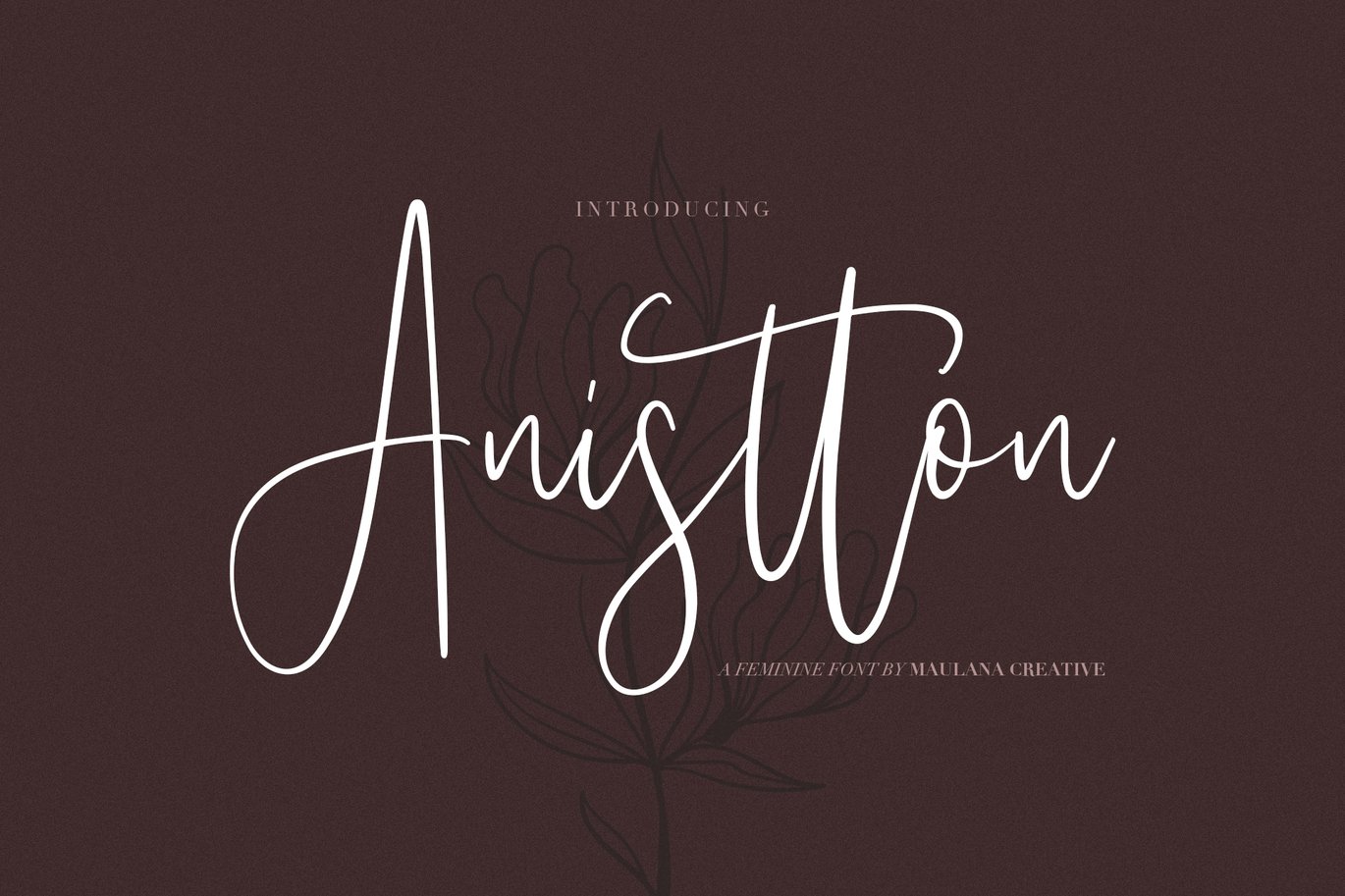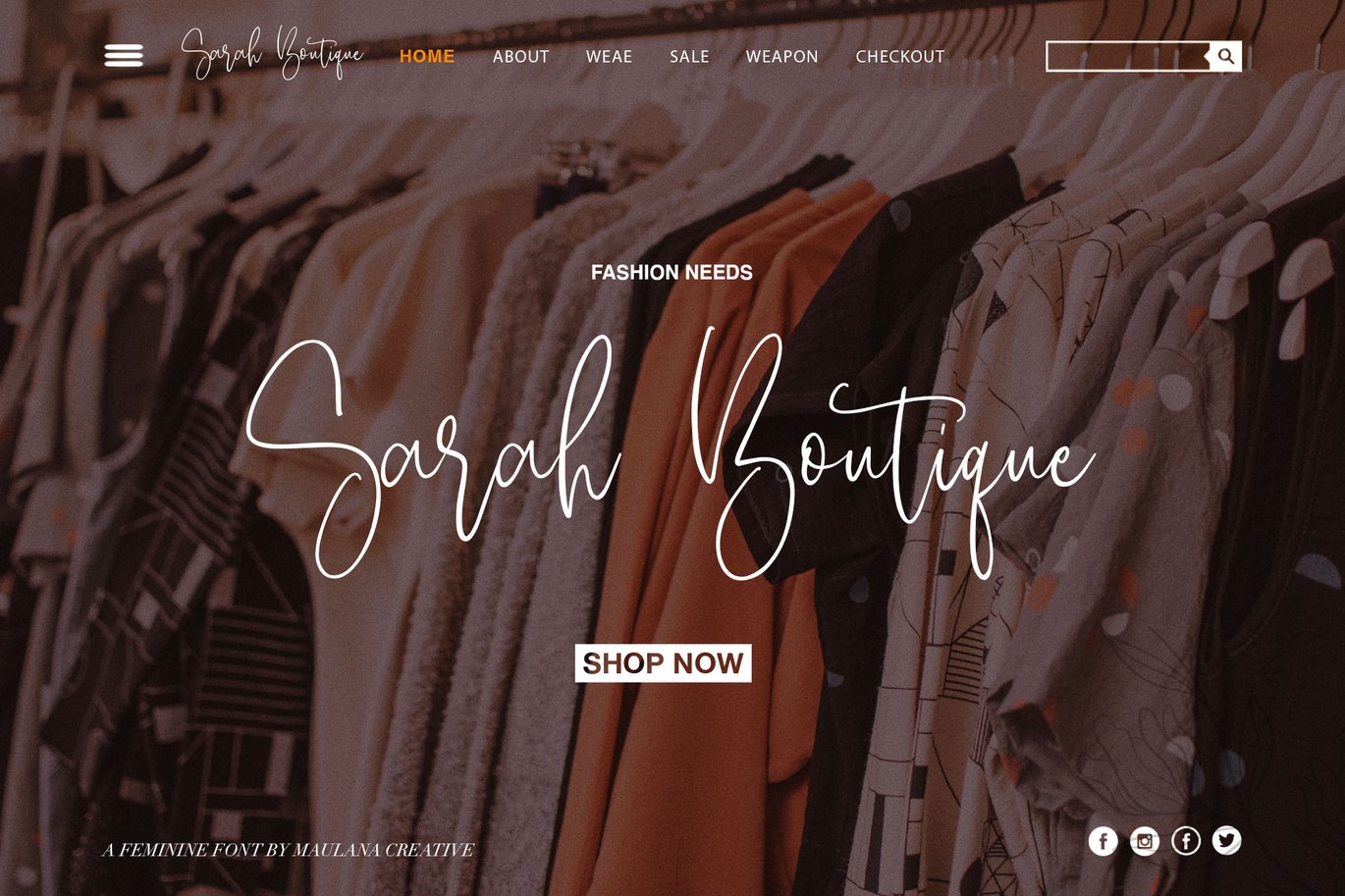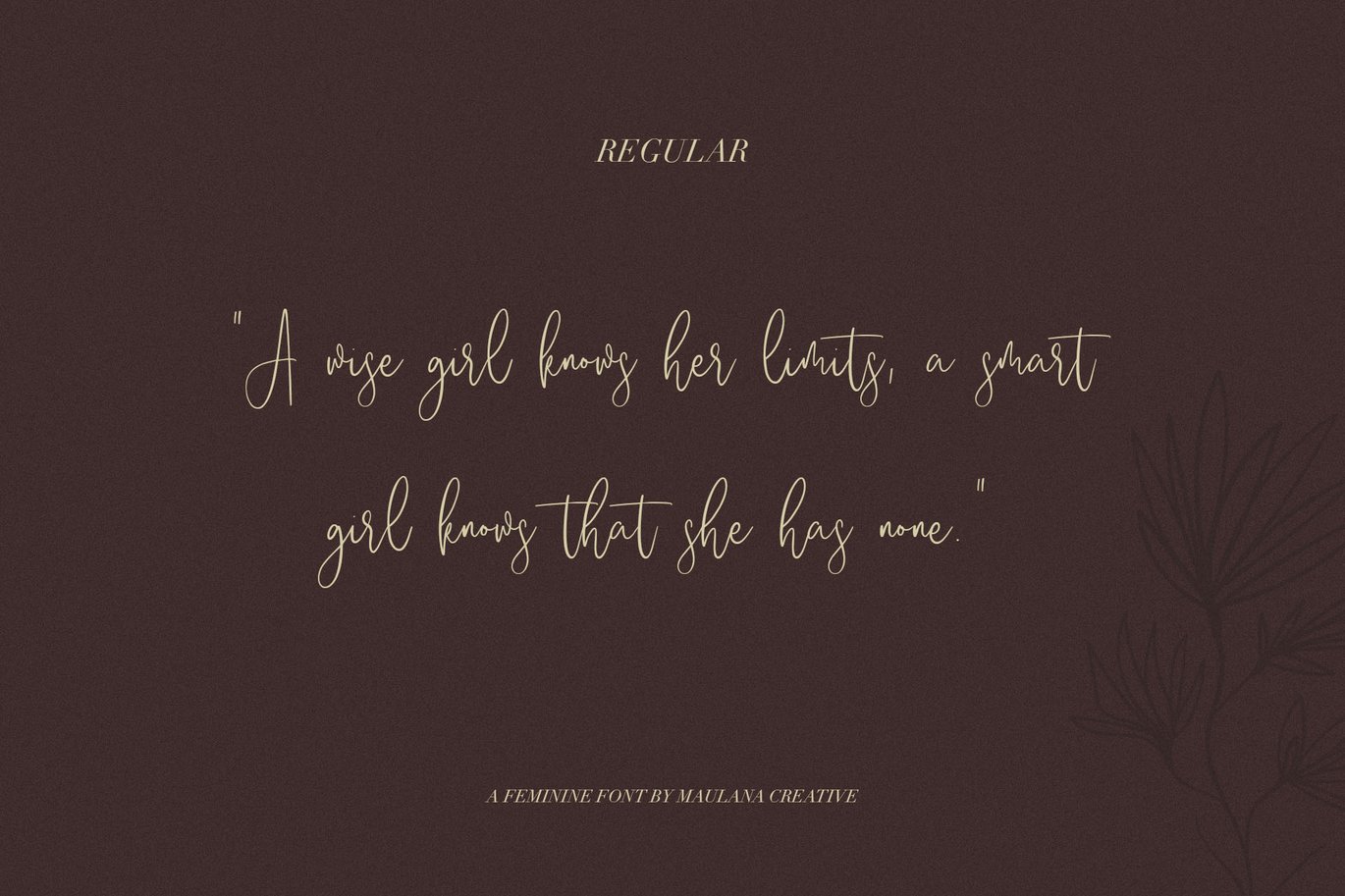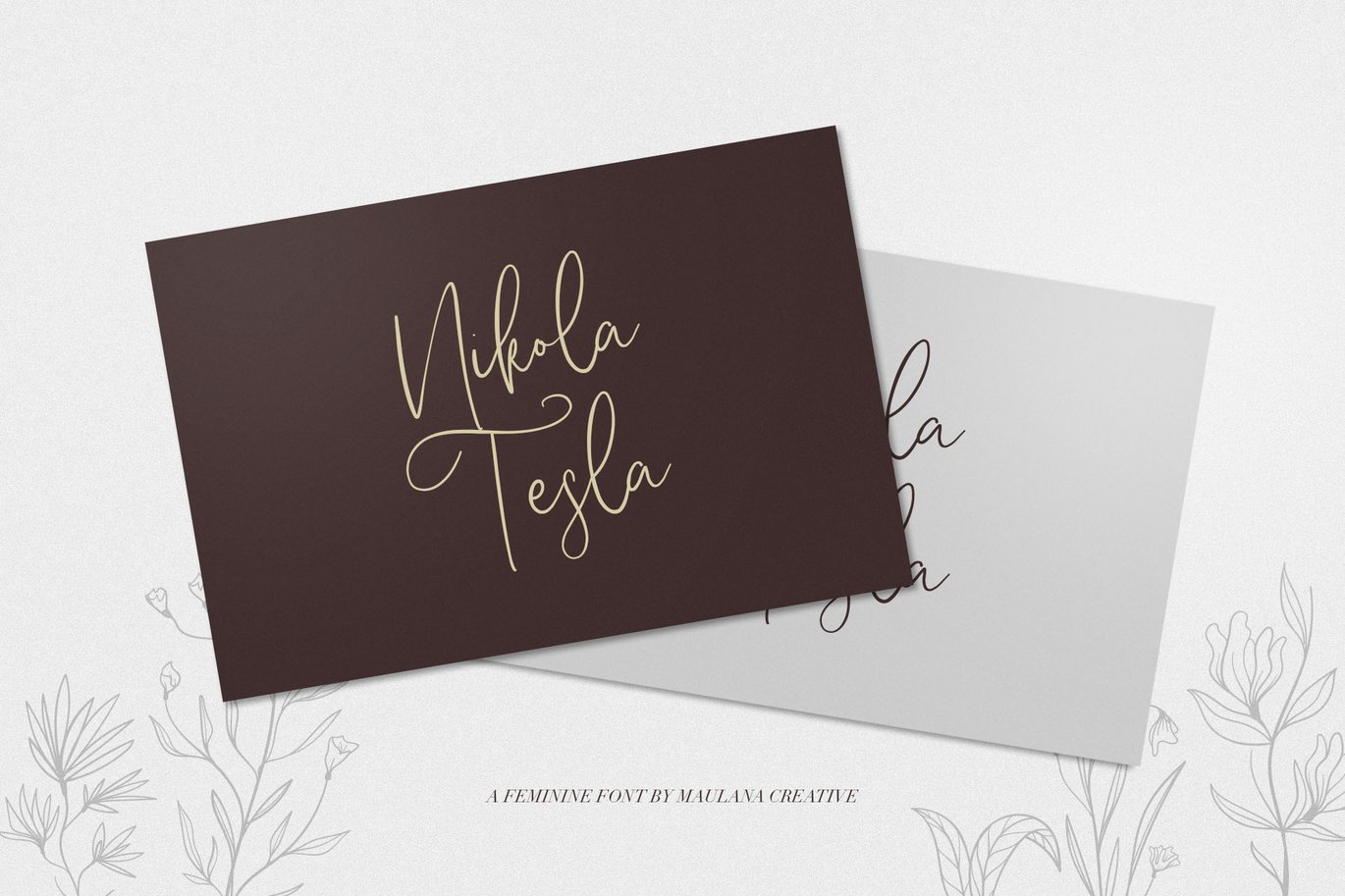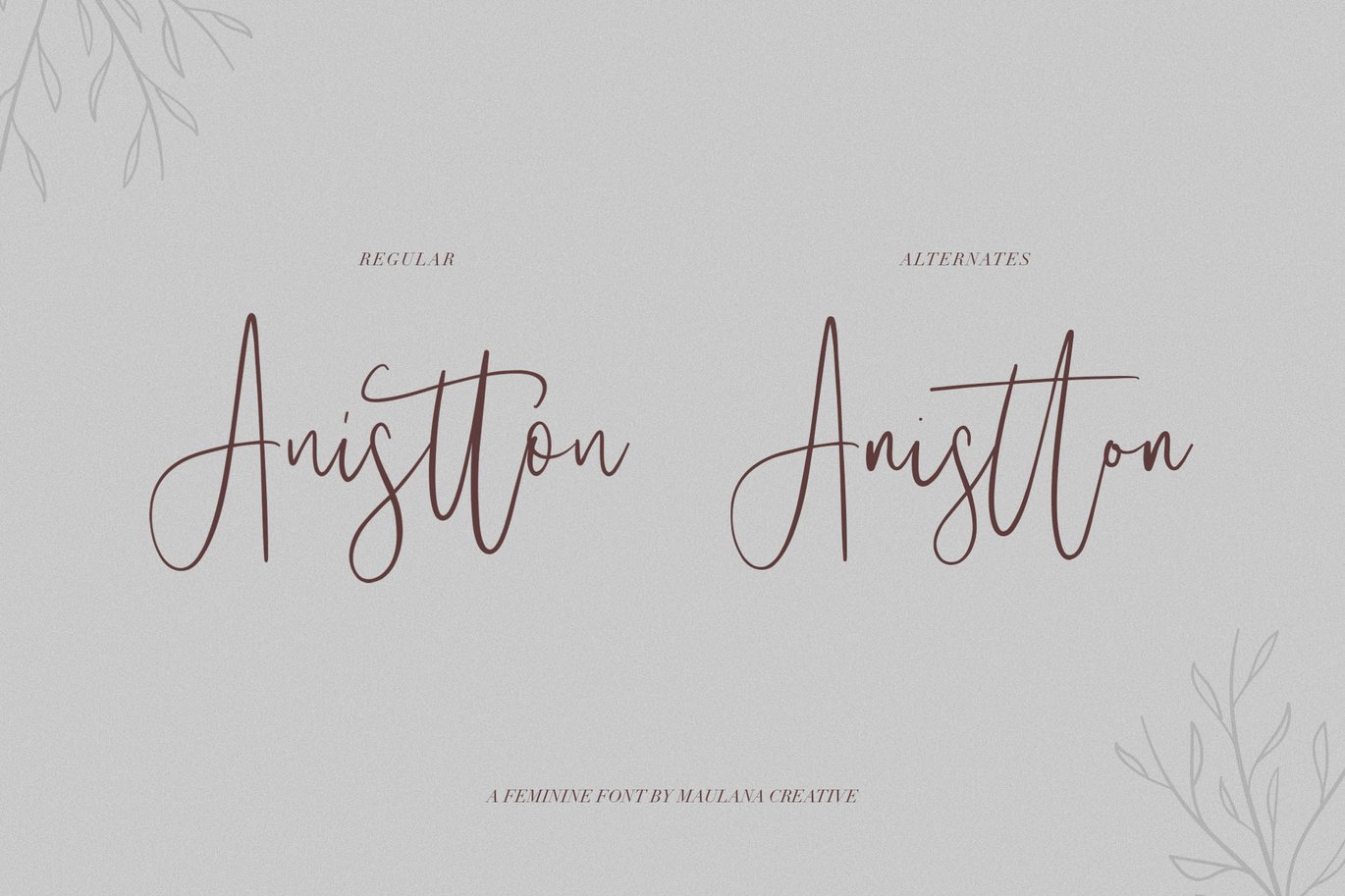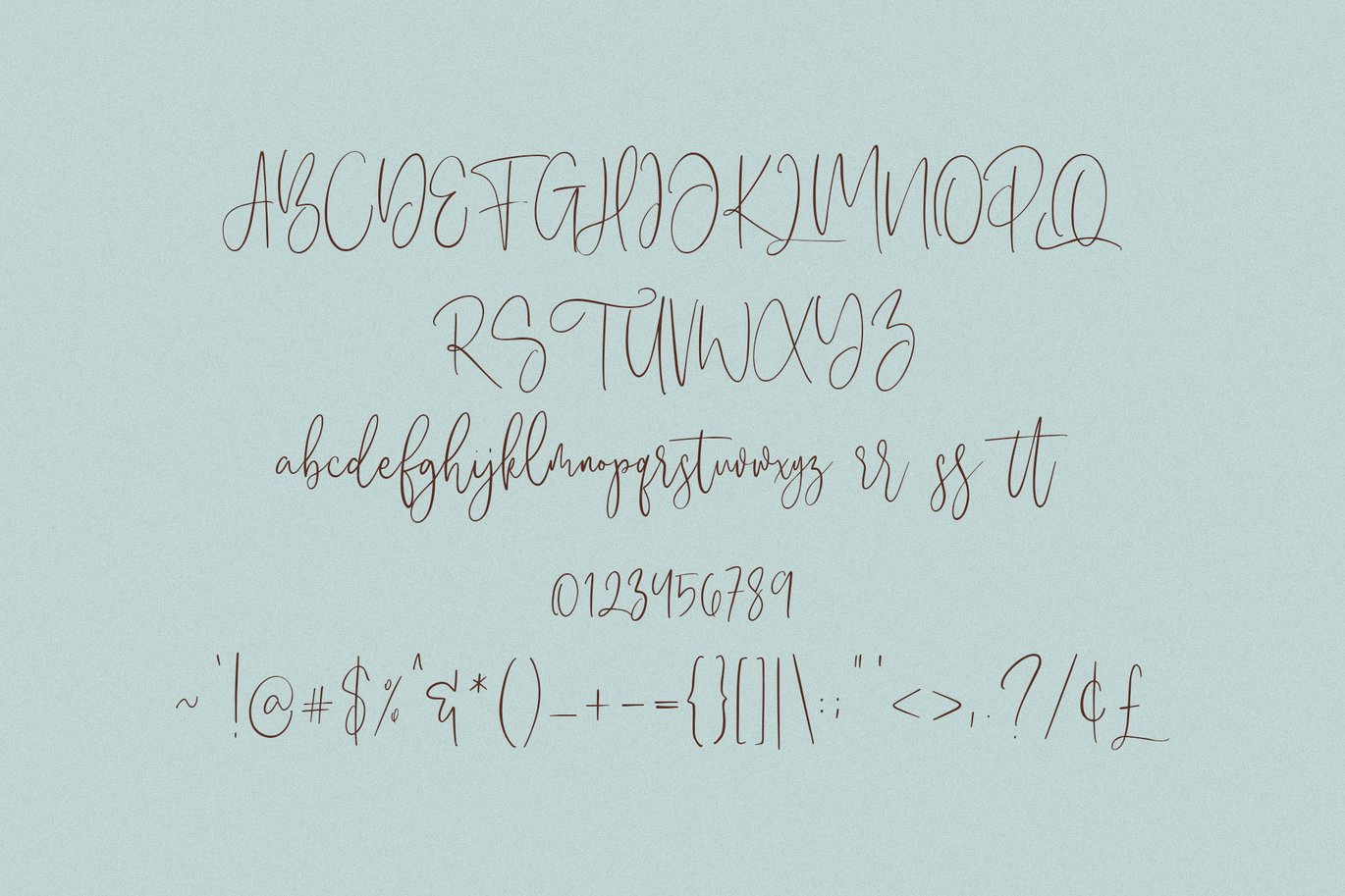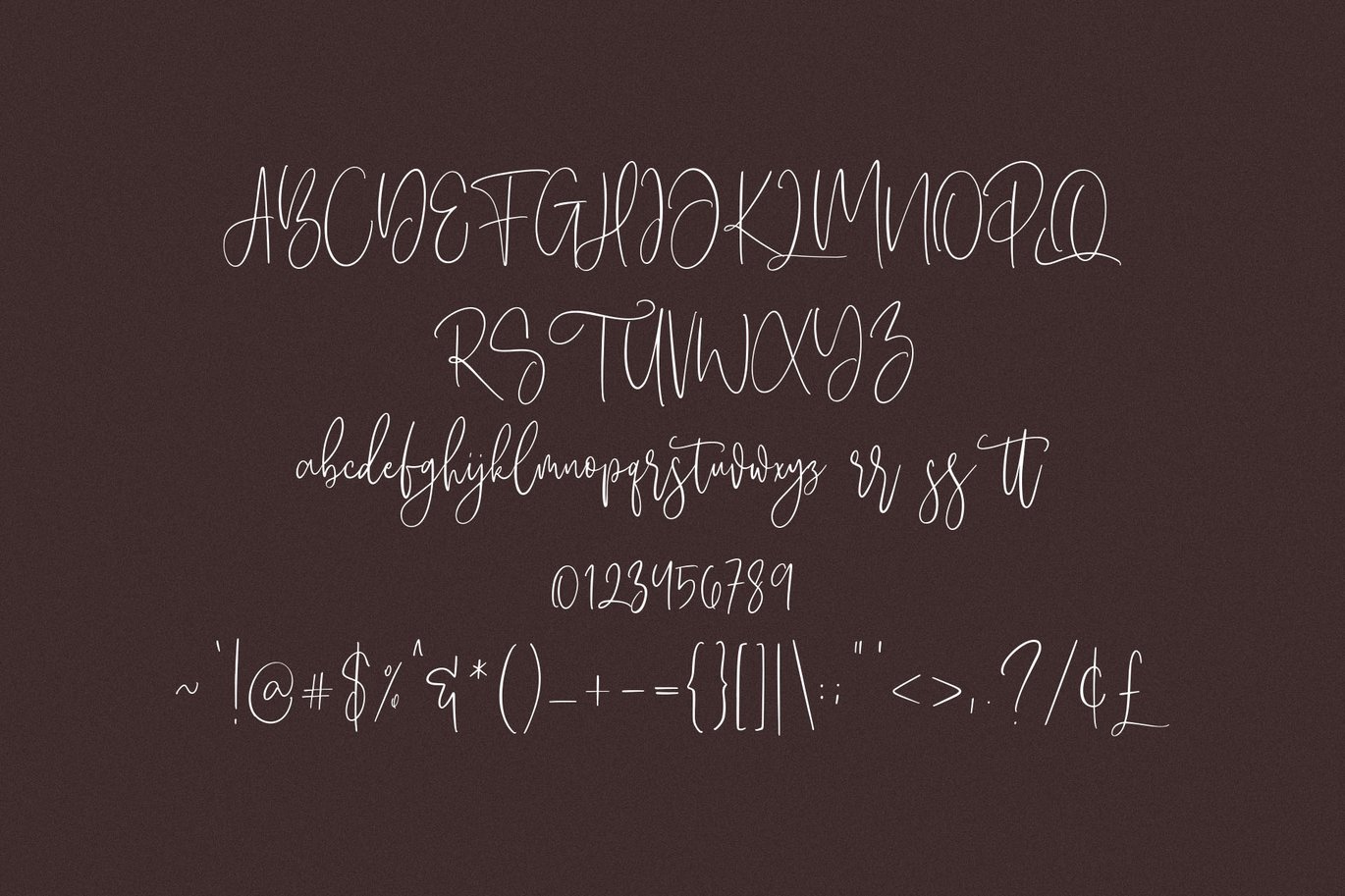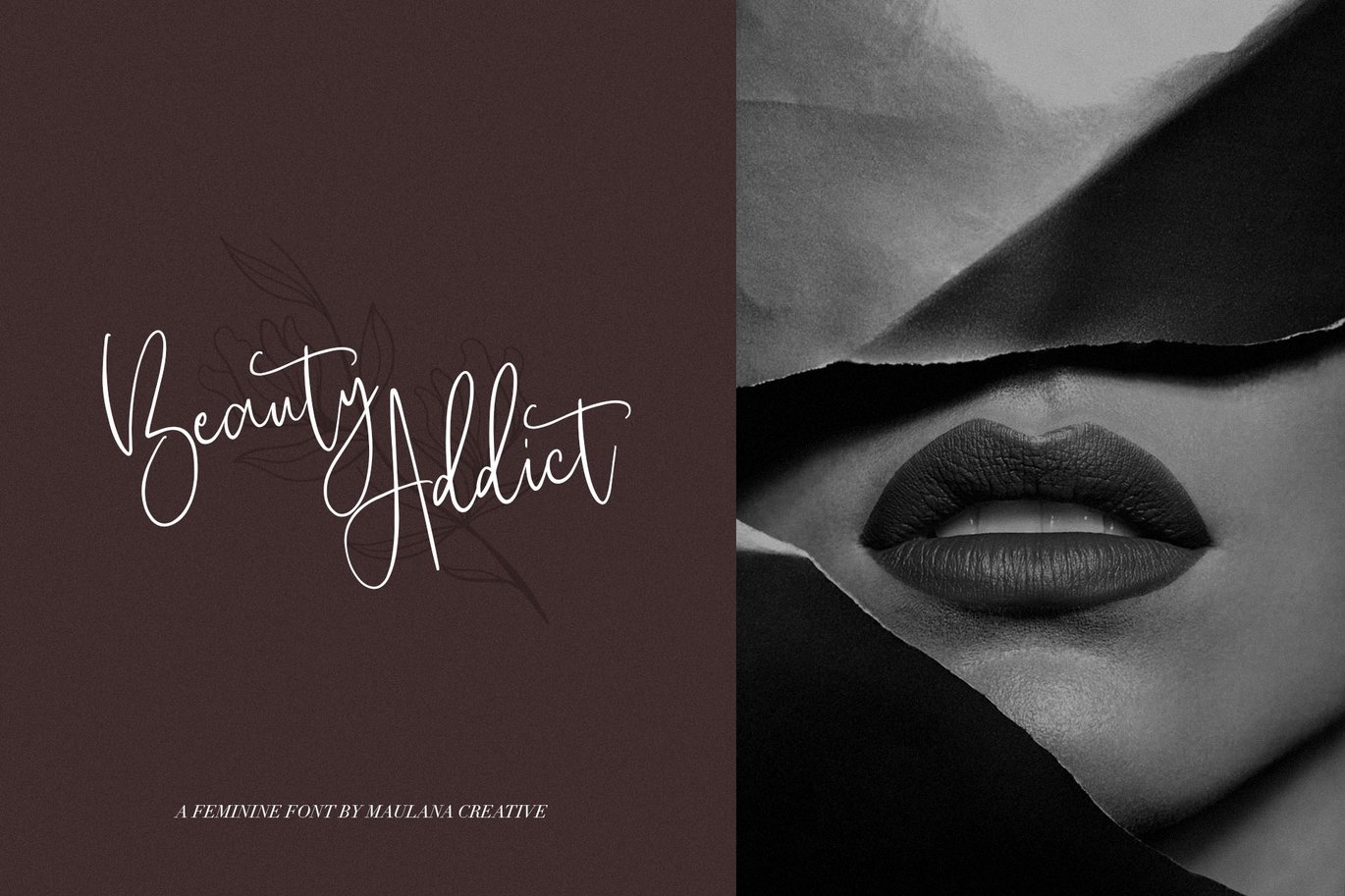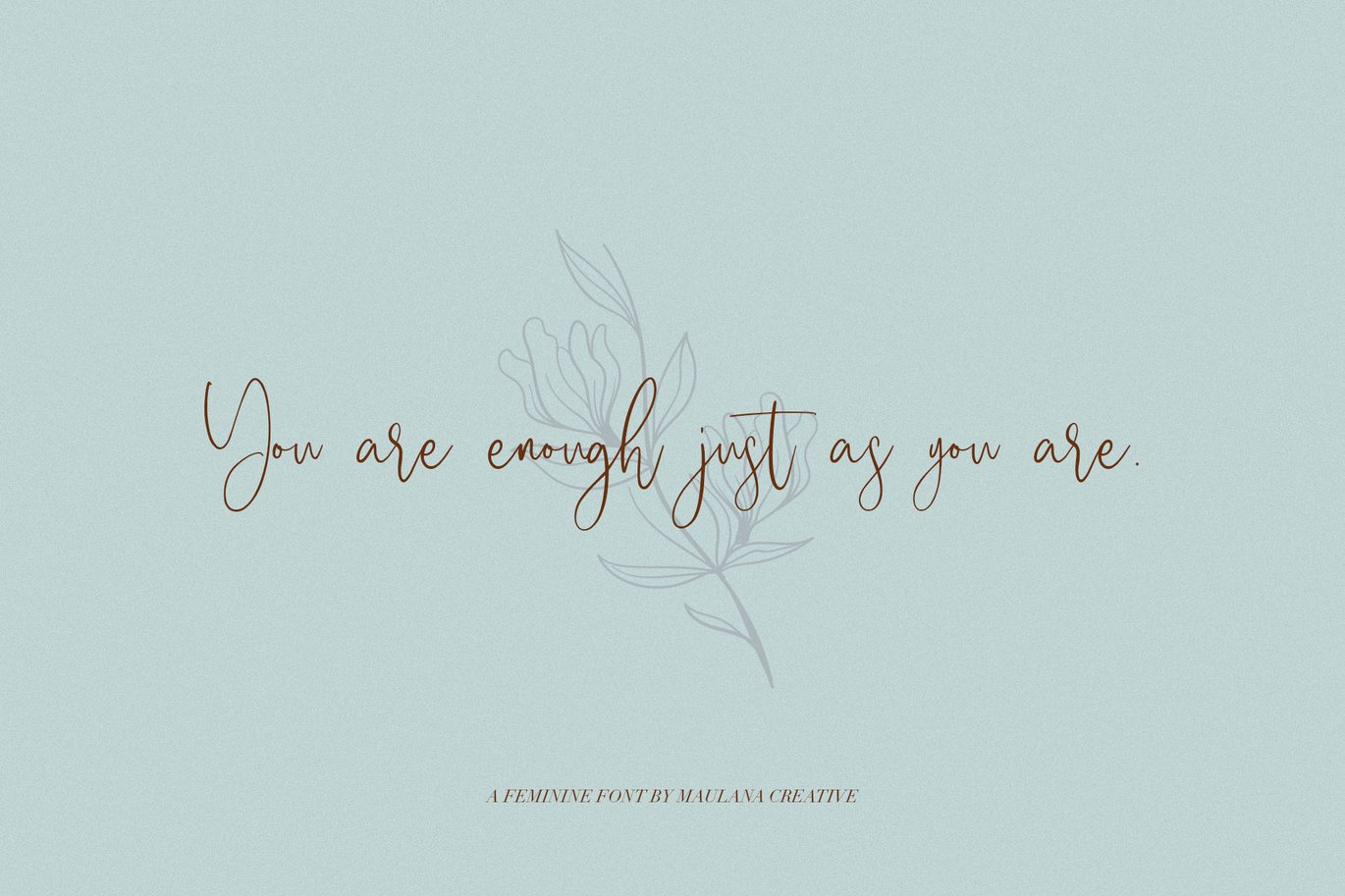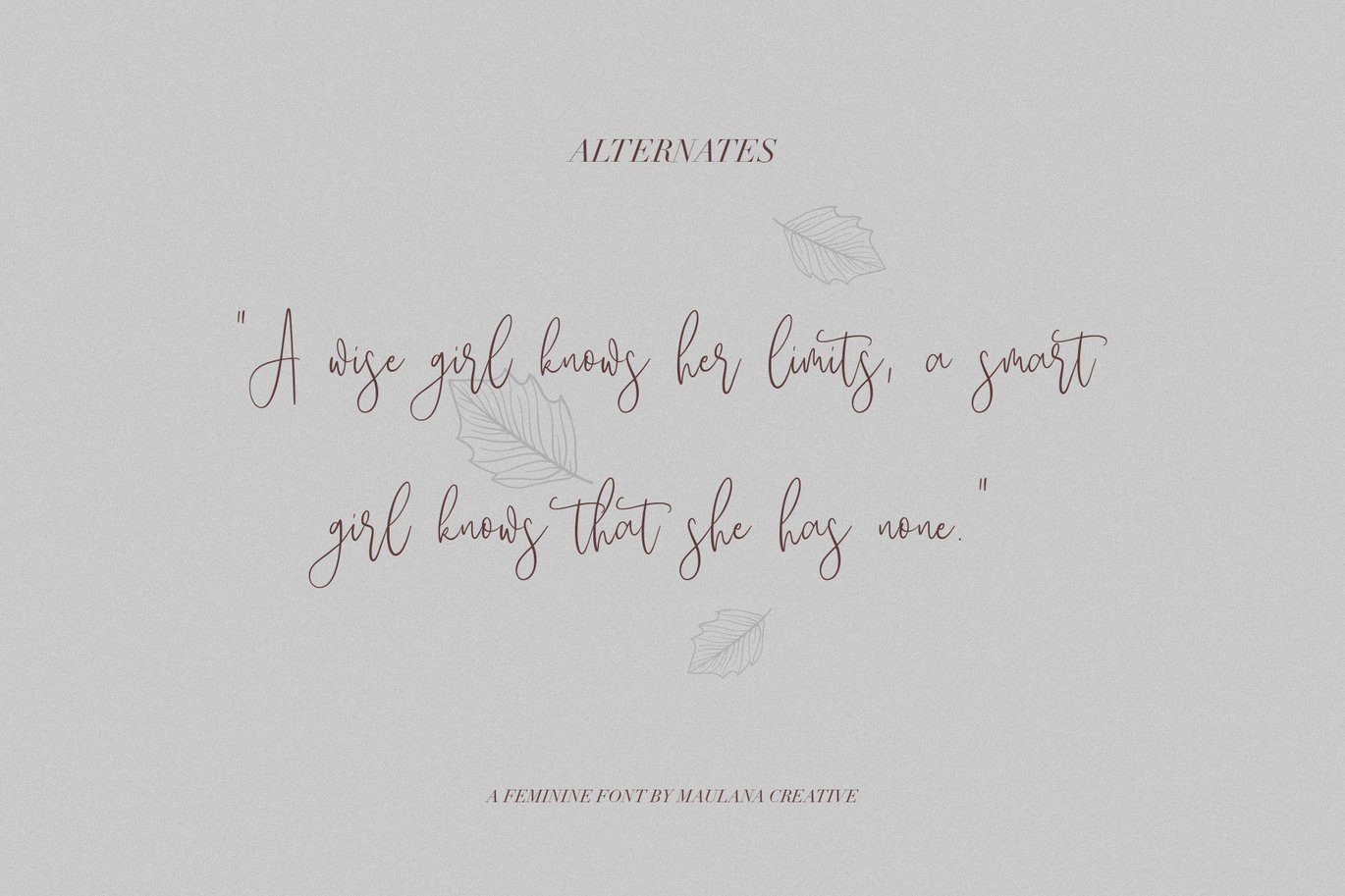
Anistton – Feminine Font
Give your designs an authentic brush handcrafted feel. “Anistton” is perfectly suited to signature, stationery, logo, typography quotes, magazine or book cover, website header, flyer, clothing, branding, packaging design and more.